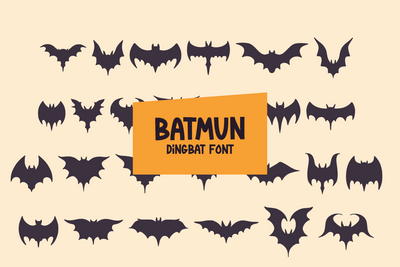
Batmun - Dingbat Font
Batmun is a unique and creative dingbat font. This font is inspired from the Halloween theme. This font contains glyphs of various bat shapes